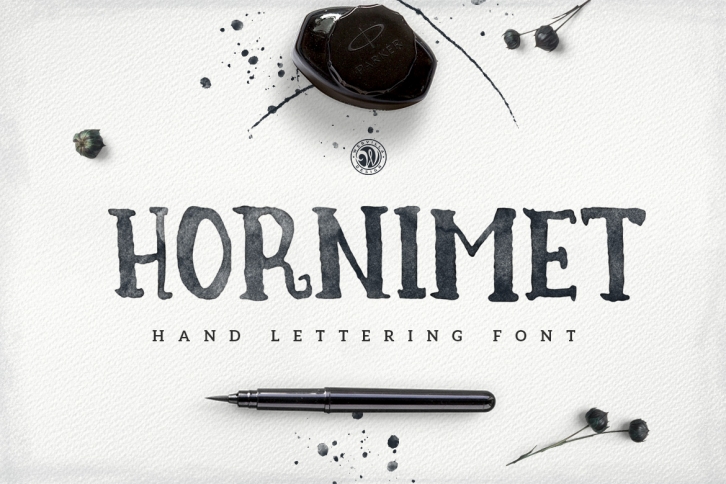
Hornimet is a gorgeous font that was realeased on May 8, 2017. The font can be used in many style contexts and design environments. Perfect for invitations, magazines, websites, logos, and more! It was designed by Webvilla and the file size is 3.62 MB. Thanks for checking out this font!